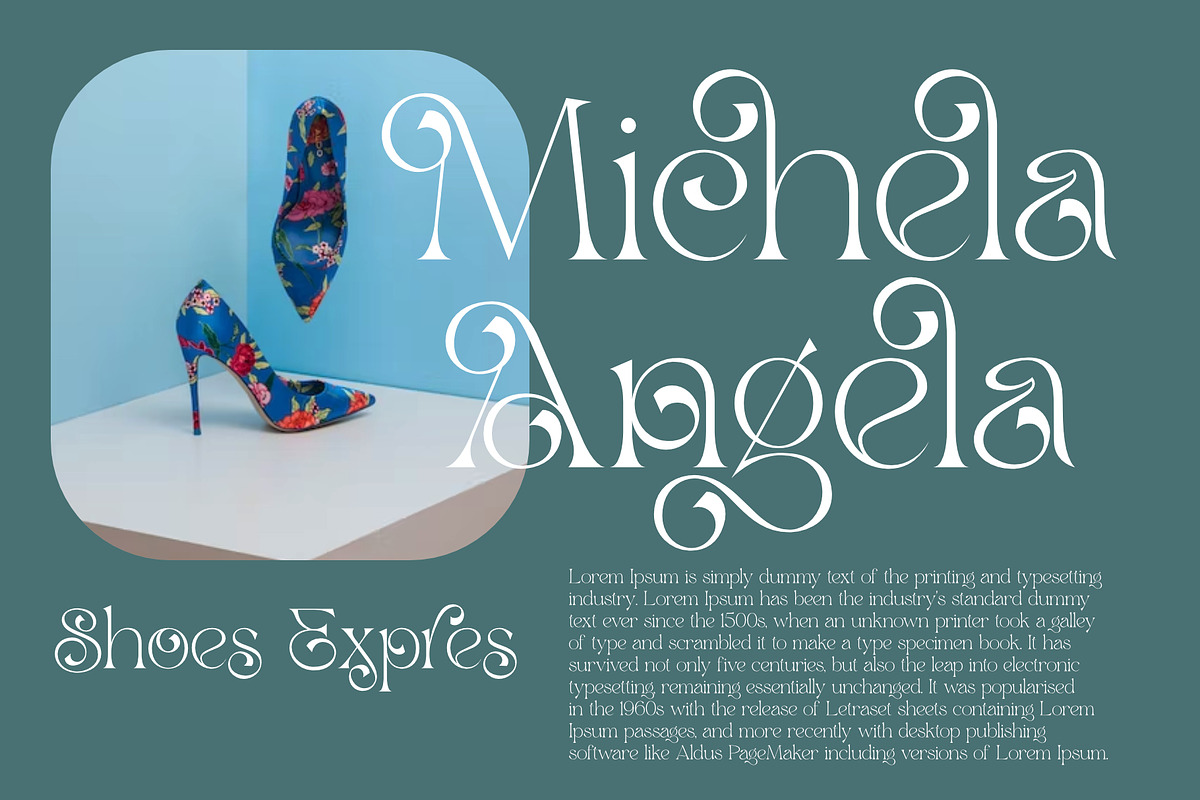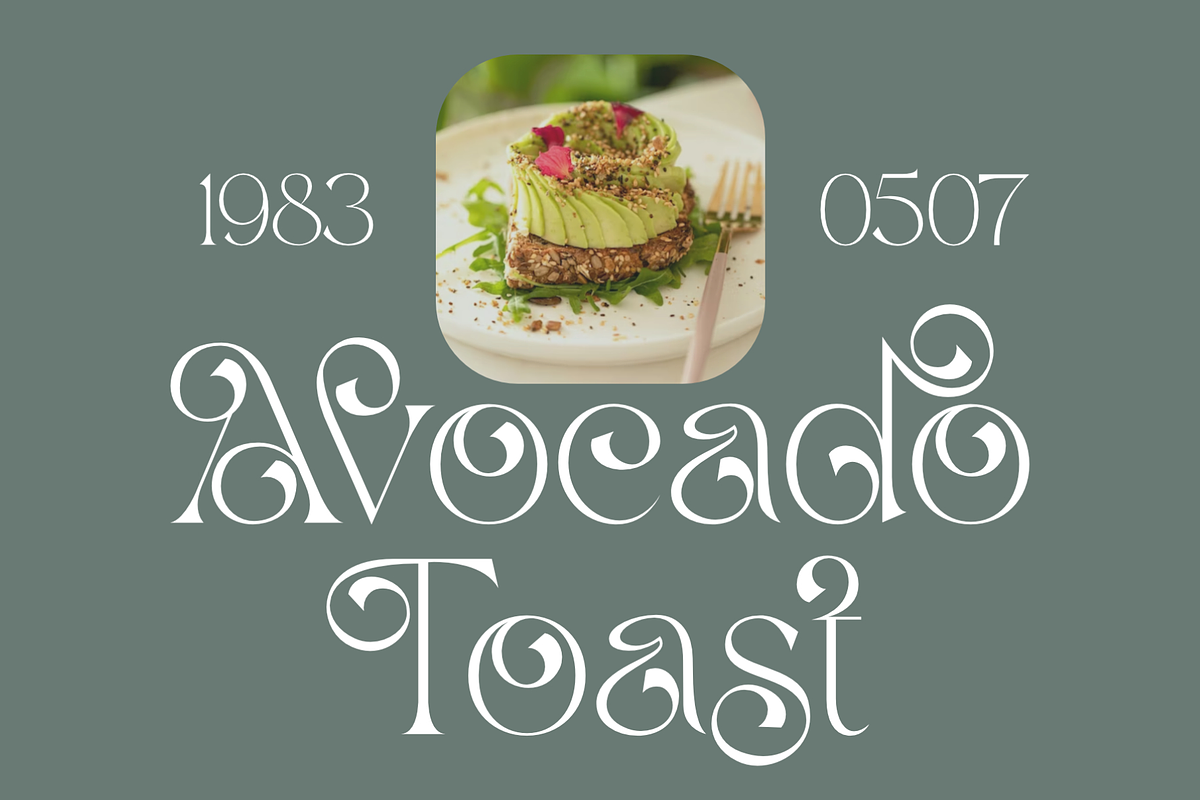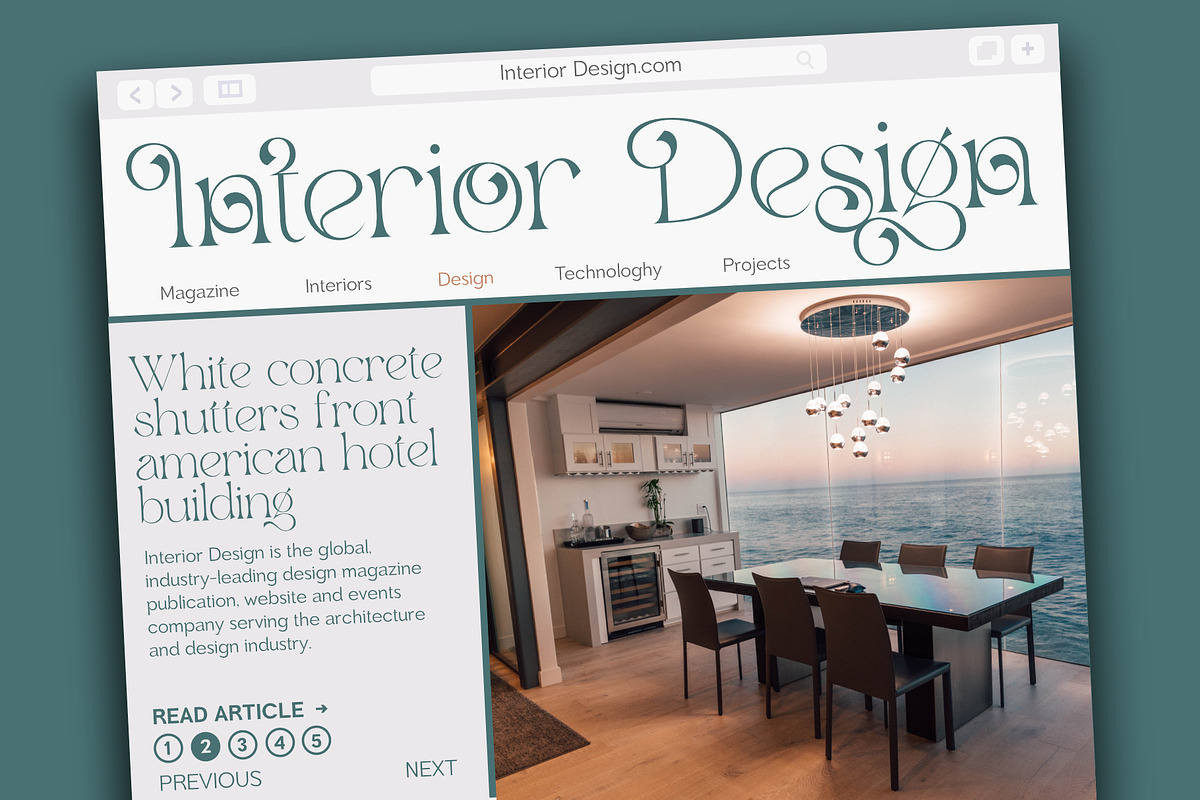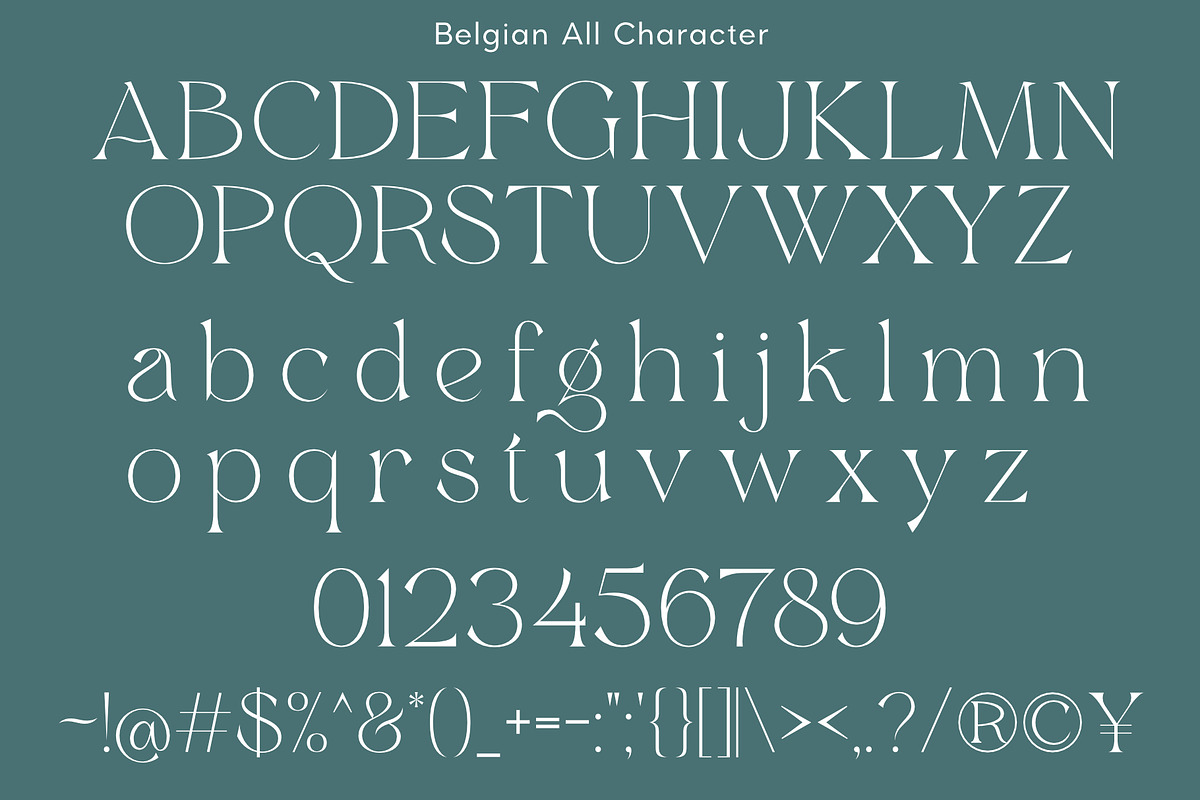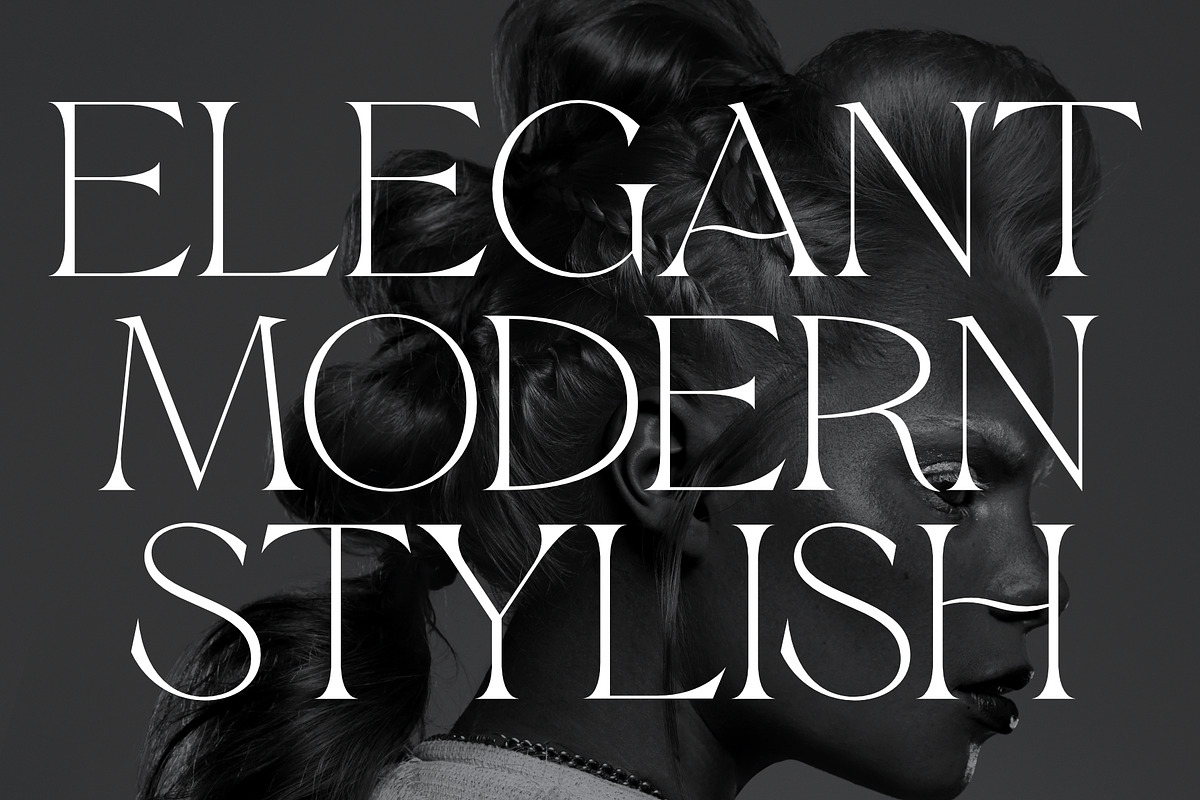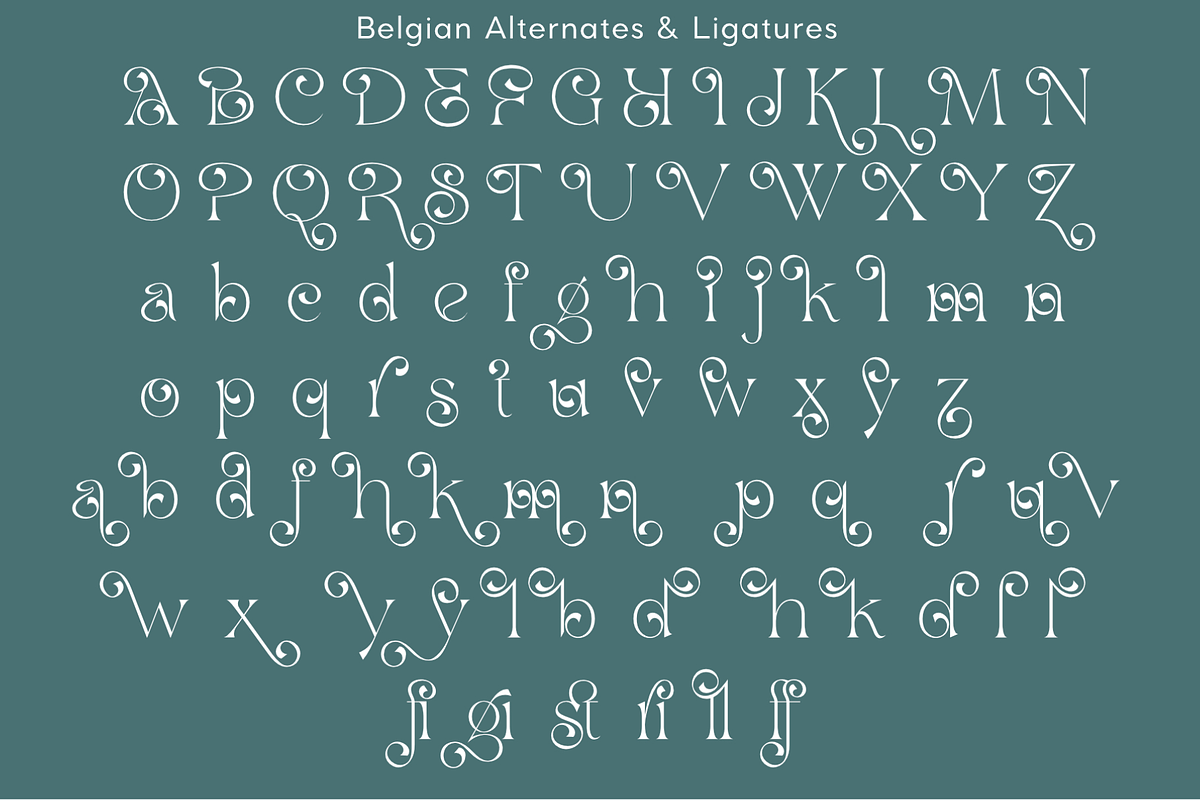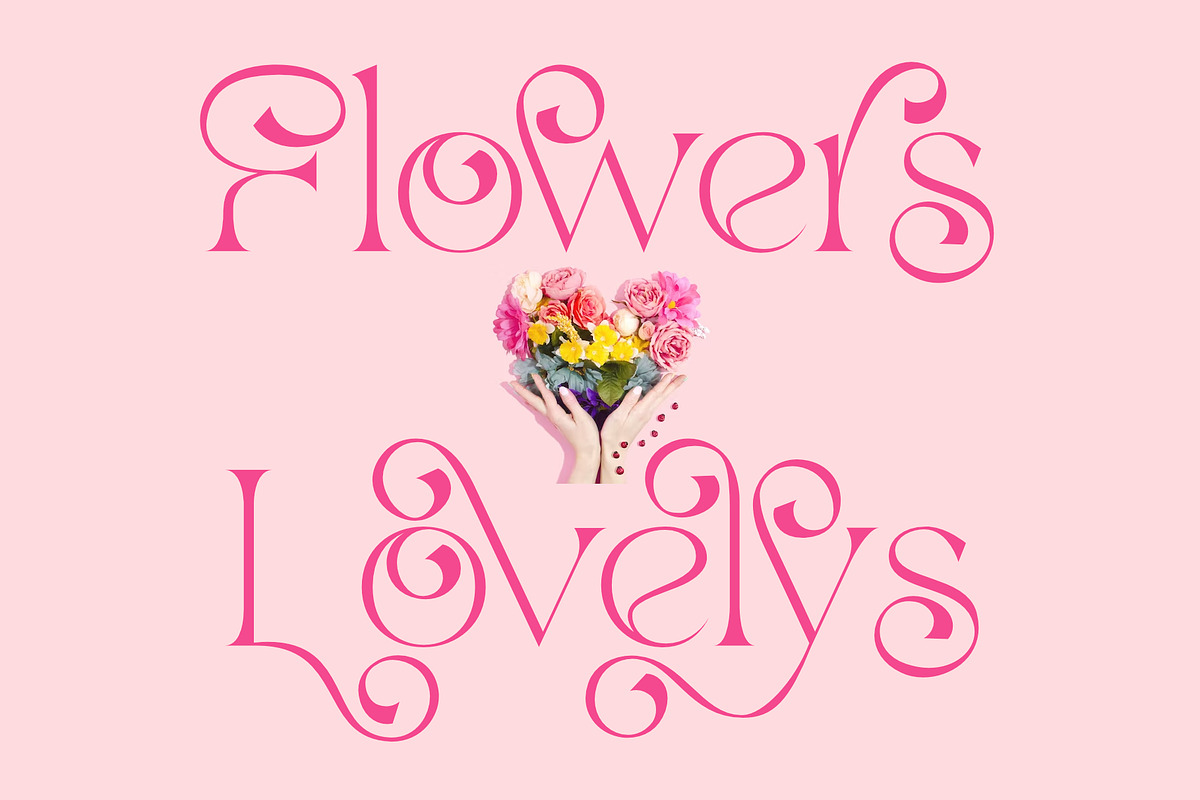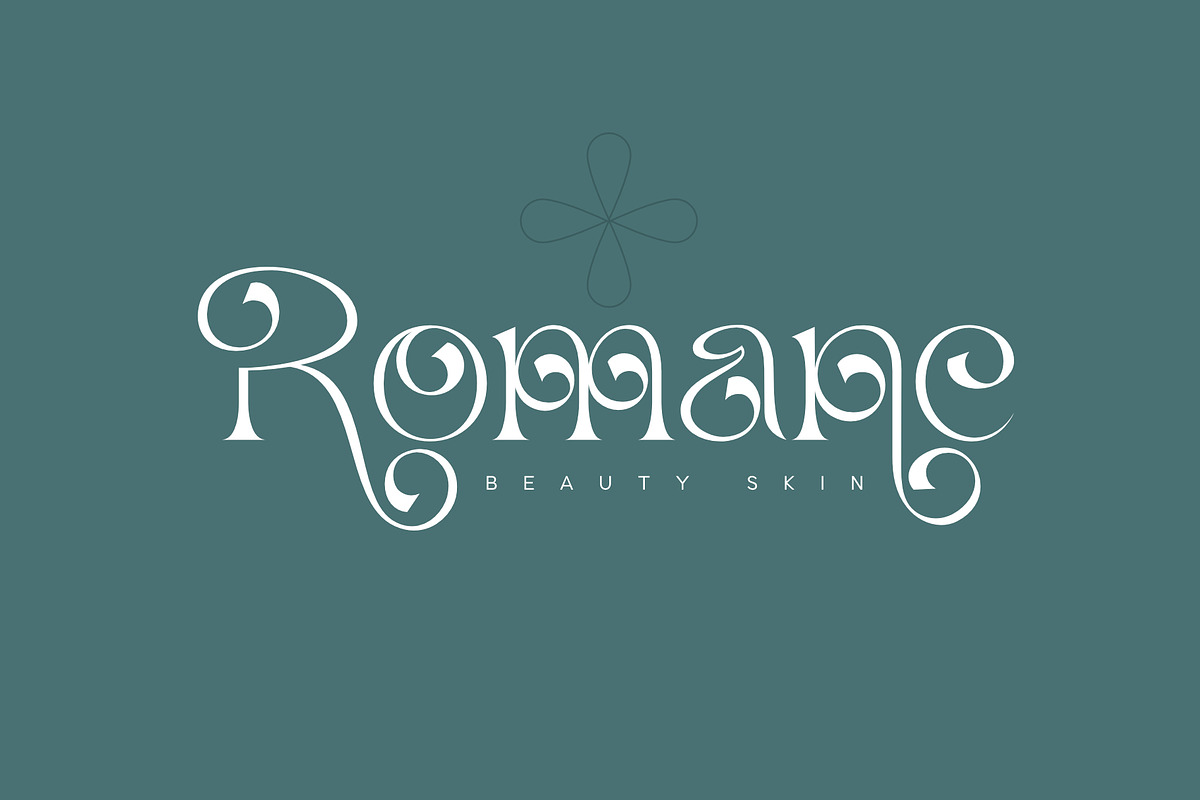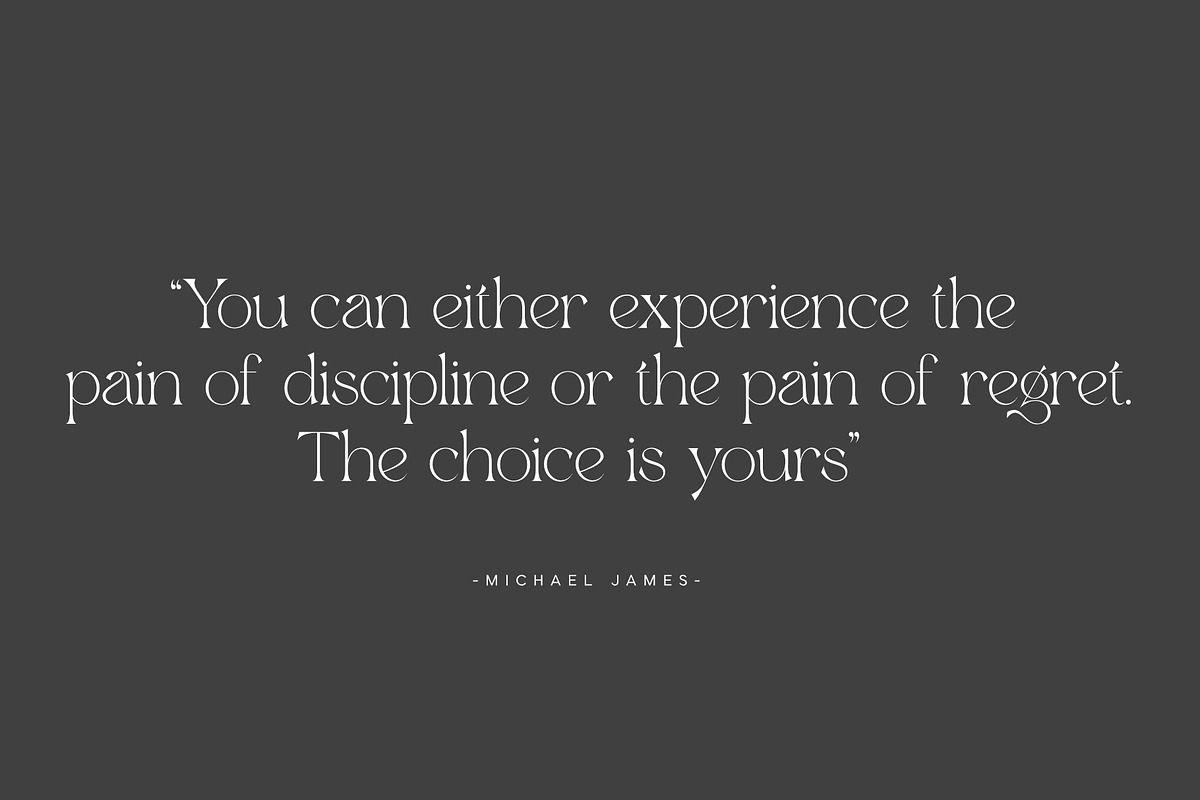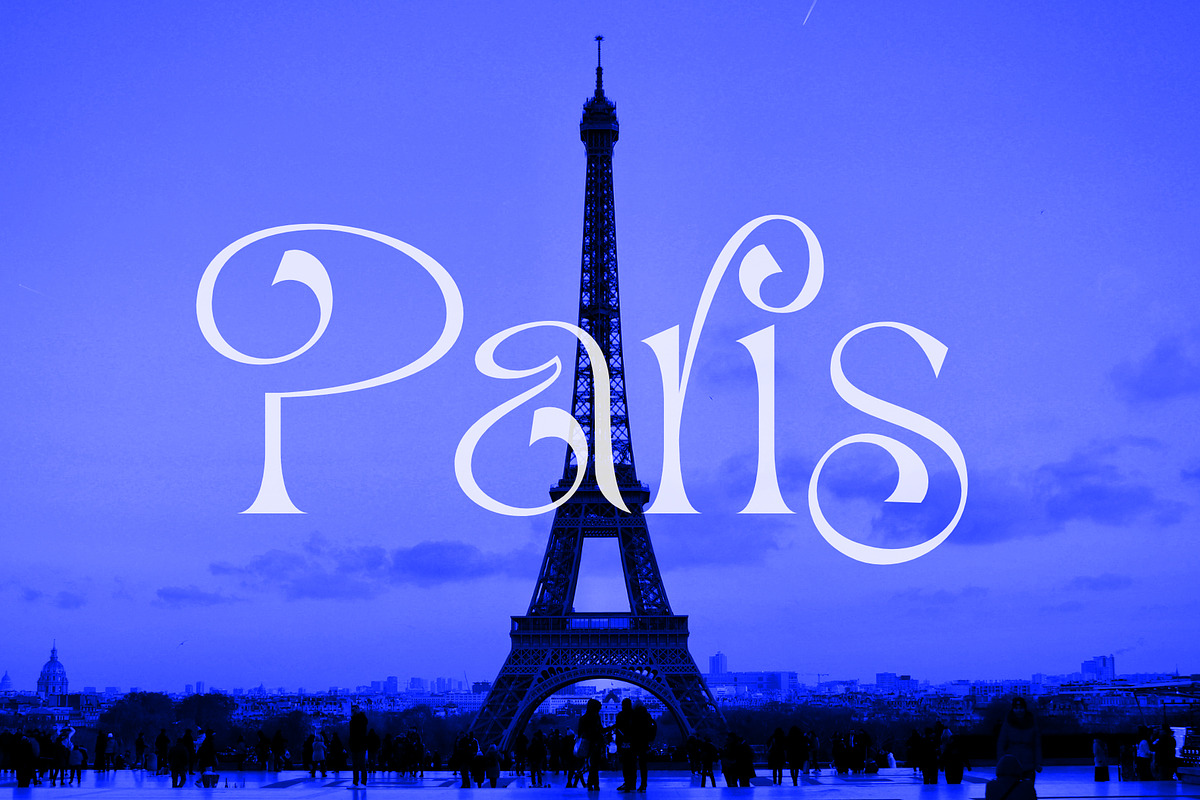
Belgian | Stylish Beautiful Serif
Belgian is a beautifully stylish modern serif font.
A new beautiful serif that we created specifically for your logo and branding needs, with an extra unique shape that will add value to your brand. It's great to take advantage of designers or product owners who need a solution to make their designs look more beautiful and modern. And especially for Belgian fonts, We prepare any alternative characters to help you create unlimited variations for your creative needs especially for logo types or wordmarks.
Belgian Beautiful Serif Font is ready with:
- Any option to get creative variations (Alternative combinations)
- Support multilingual
- Ready with Lowercase and Uppercase characters